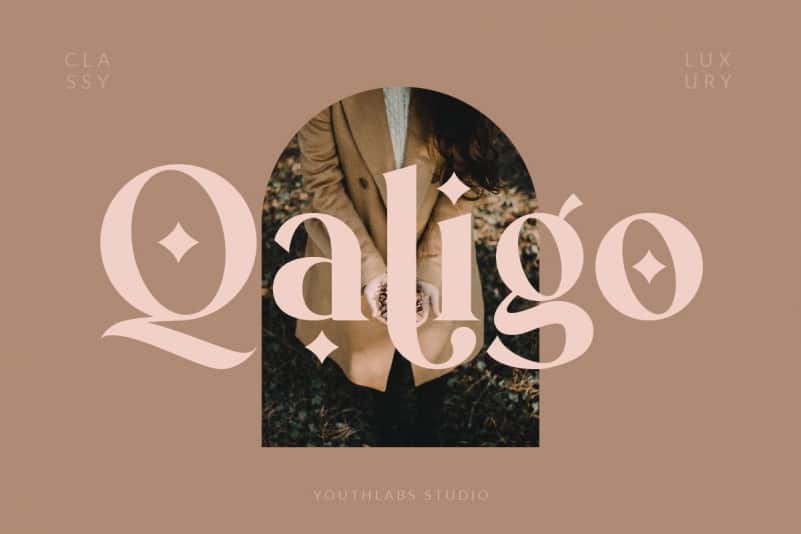
Qaligo Serif Font
Qaligo Serif Font is a modern & classic font. This font is ideal for creating logos and branding. Made from font designer named youthlabs. It’s a Brand New Serif Font with Luxury Shape, More Opentype Feature, more neat curves
Qaligo Serif Font Inspired by Modern and Luxury Typography. Qaligo is a very versatile font. you can use this font to various design. Basics can improve more than 250 alternates character where can collaborate with premade logos.